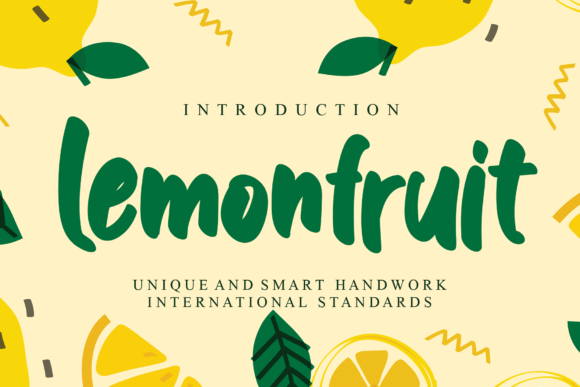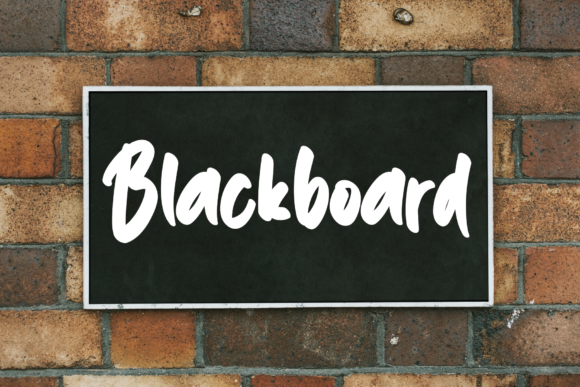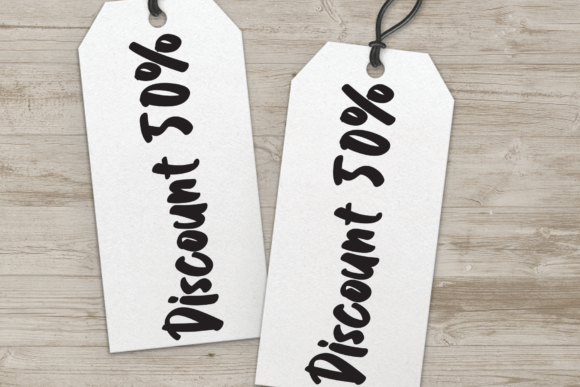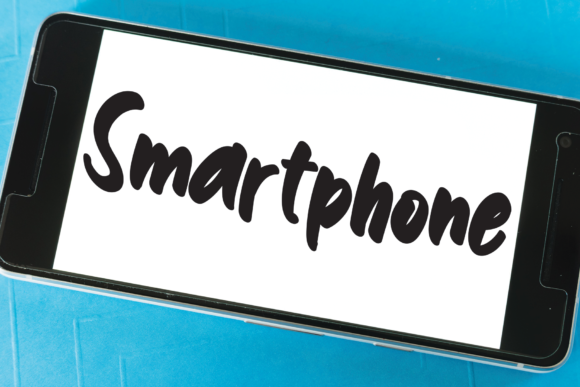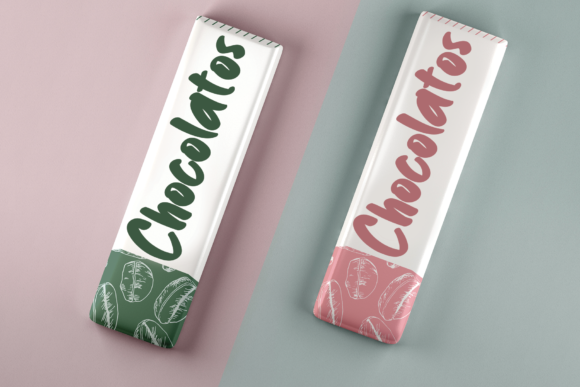
Lemonfruit Font
About Lemonfruit Font
Lemonfruit is a relaxed, adaptable and friendly handwritten font. This original look will appeal to a wide range of crafty ideas, from letterheads and titles, to stationery.